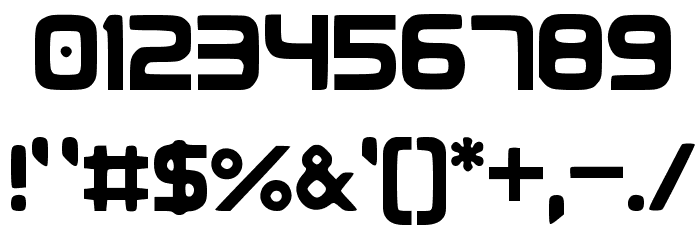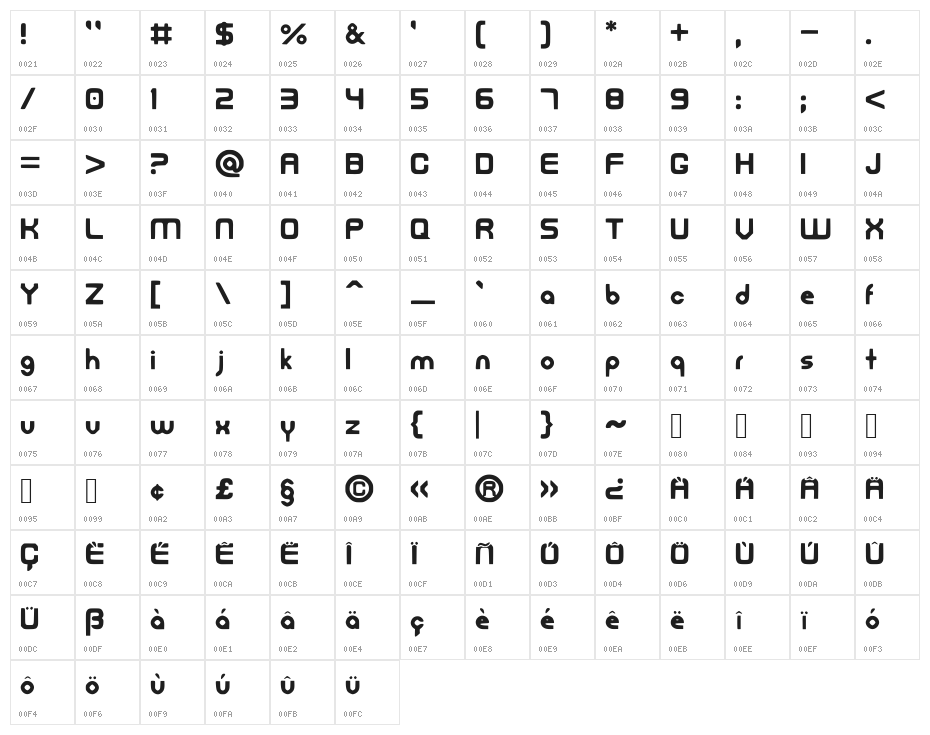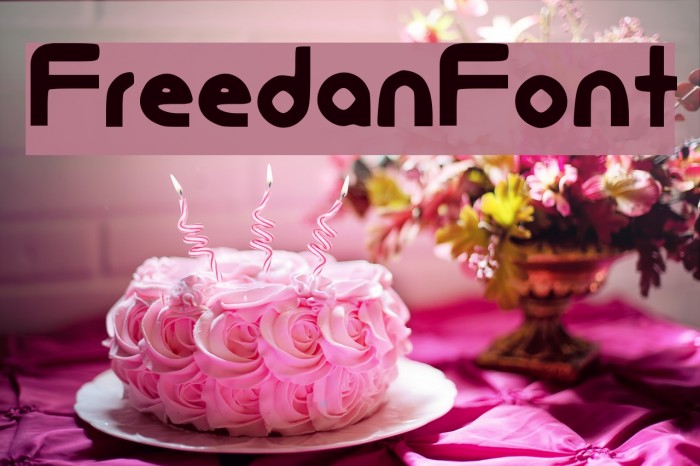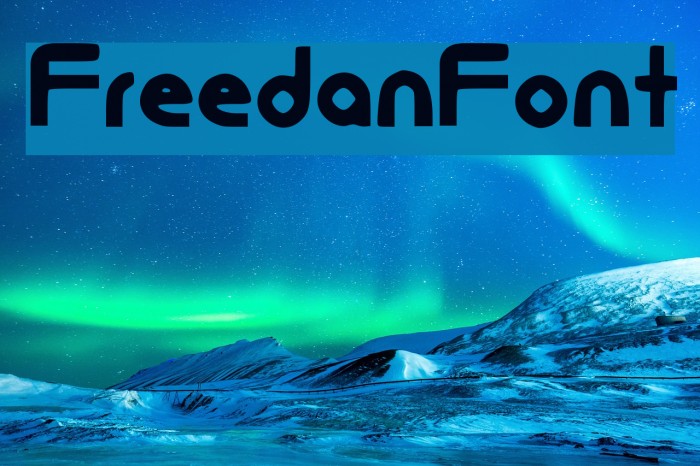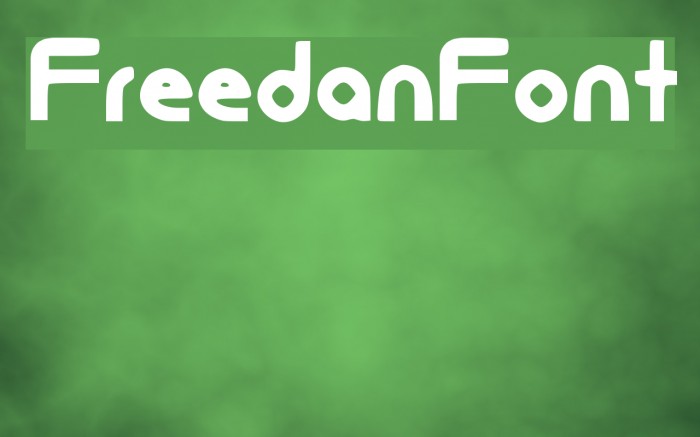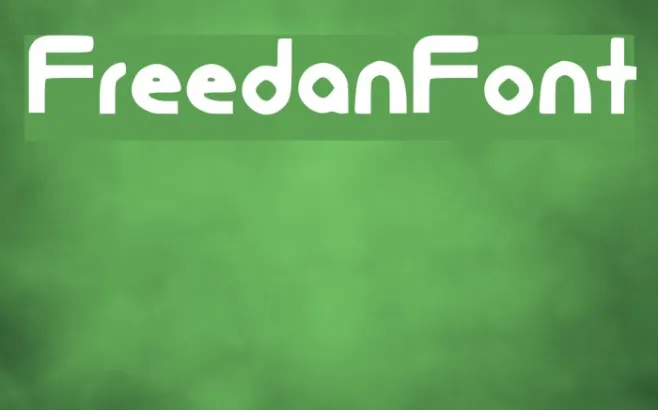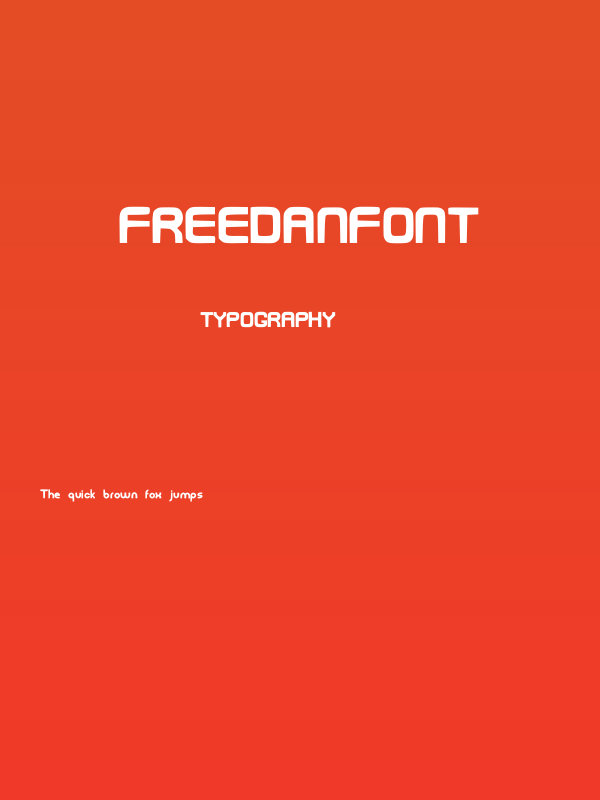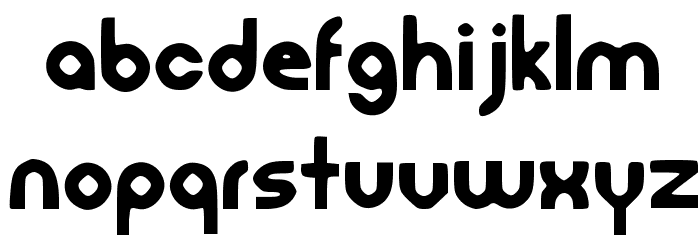
FreedanFont Font
FreedanFont Description
This font features a modern, geometric design with rounded edges, giving it a friendly and approachable appearance. The characters are bold and uniform, with consistent stroke widths that create a harmonious and balanced look. The uppercase letters are slightly condensed, while the lowercase letters maintain a more open and airy feel. The numerals and special characters are designed to match the overall style, ensuring a cohesive appearance across all text. This font is versatile and can be used in various design contexts, from digital interfaces to print media.